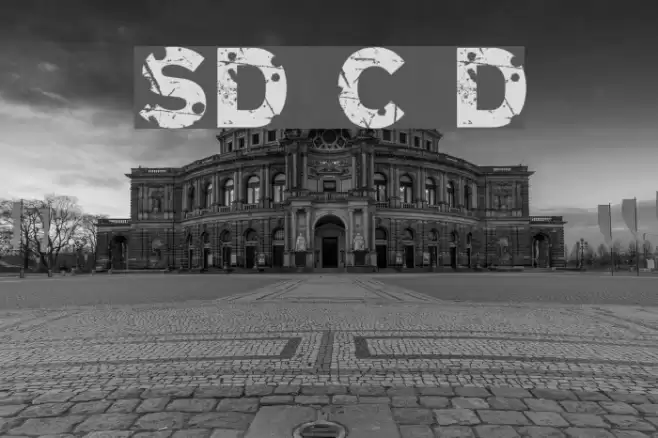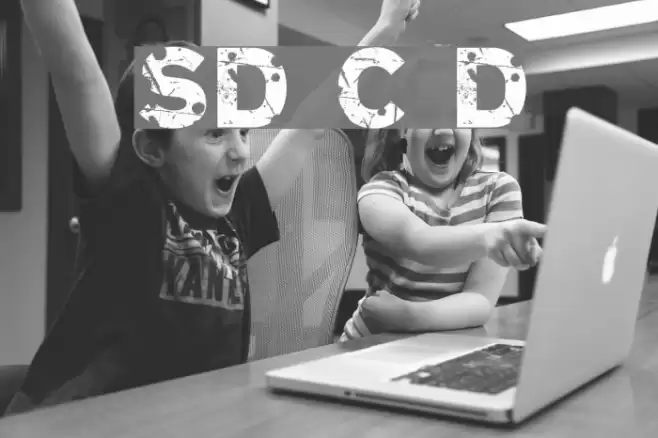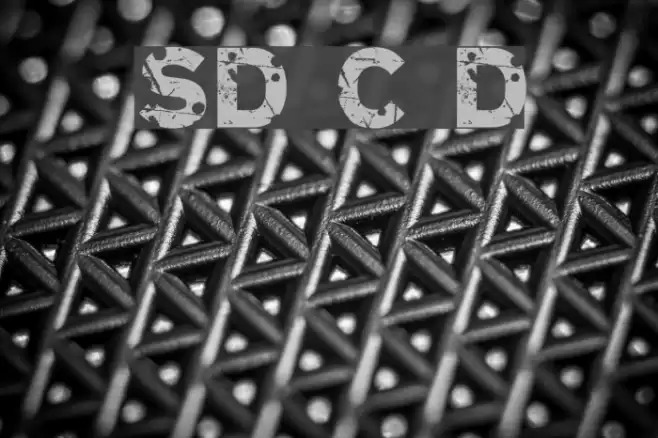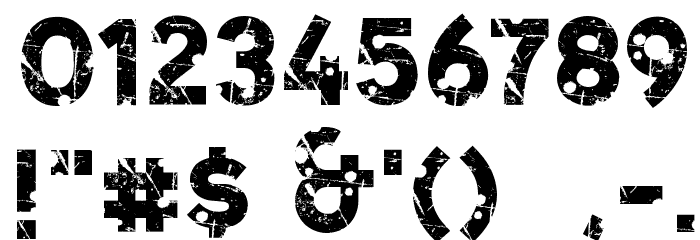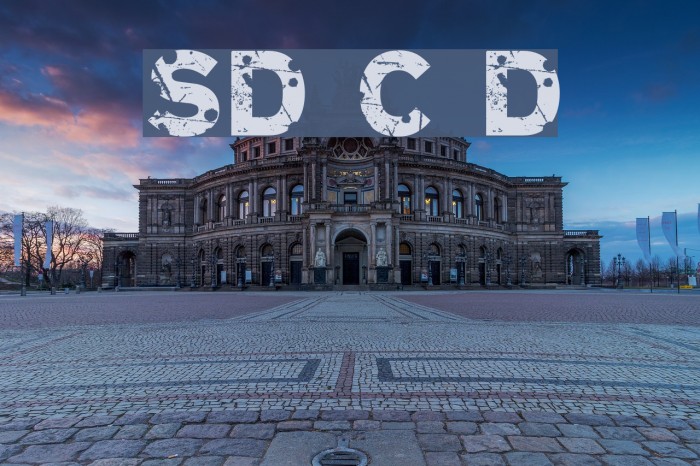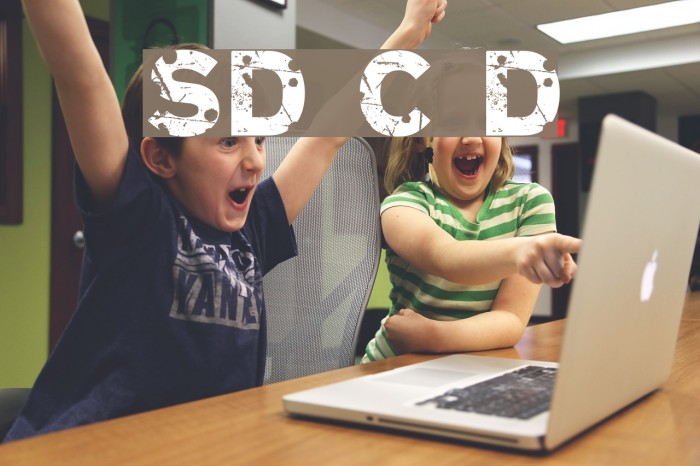
SD Cammello Demo Font
SD Cammello Demo Description
This font features a bold, distressed style with a grunge texture that gives it a rugged, worn appearance. The characters are uppercase and lowercase, with numbers and a variety of special symbols. Each letter and number appears to have been eroded or scratched, adding to its unique, edgy aesthetic. The font's boldness and texture make it stand out, ideal for projects that require a strong visual impact. The irregularities in the design contribute to its dynamic and energetic feel, making it suitable for creative and unconventional uses.
A bold, distressed font with a grunge texture and rugged appearance from Distorted Eroded fonts.
- Proposed Projects: Ideal for posters, album covers, branding for edgy products, or any design needing a strong, gritty aesthetic.
- Overall Style: Grunge, Edgy, Distressed